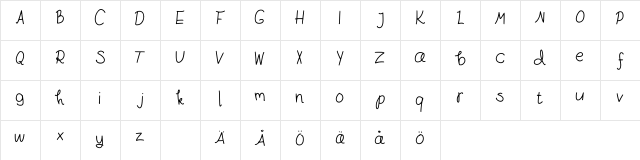
Pretty Flowers Regular
Design Context for Pretty Flowers Typeface
Pretty Flowers is a composed and adaptable typeface that performs quietly and consistently across a wide range of design contexts.